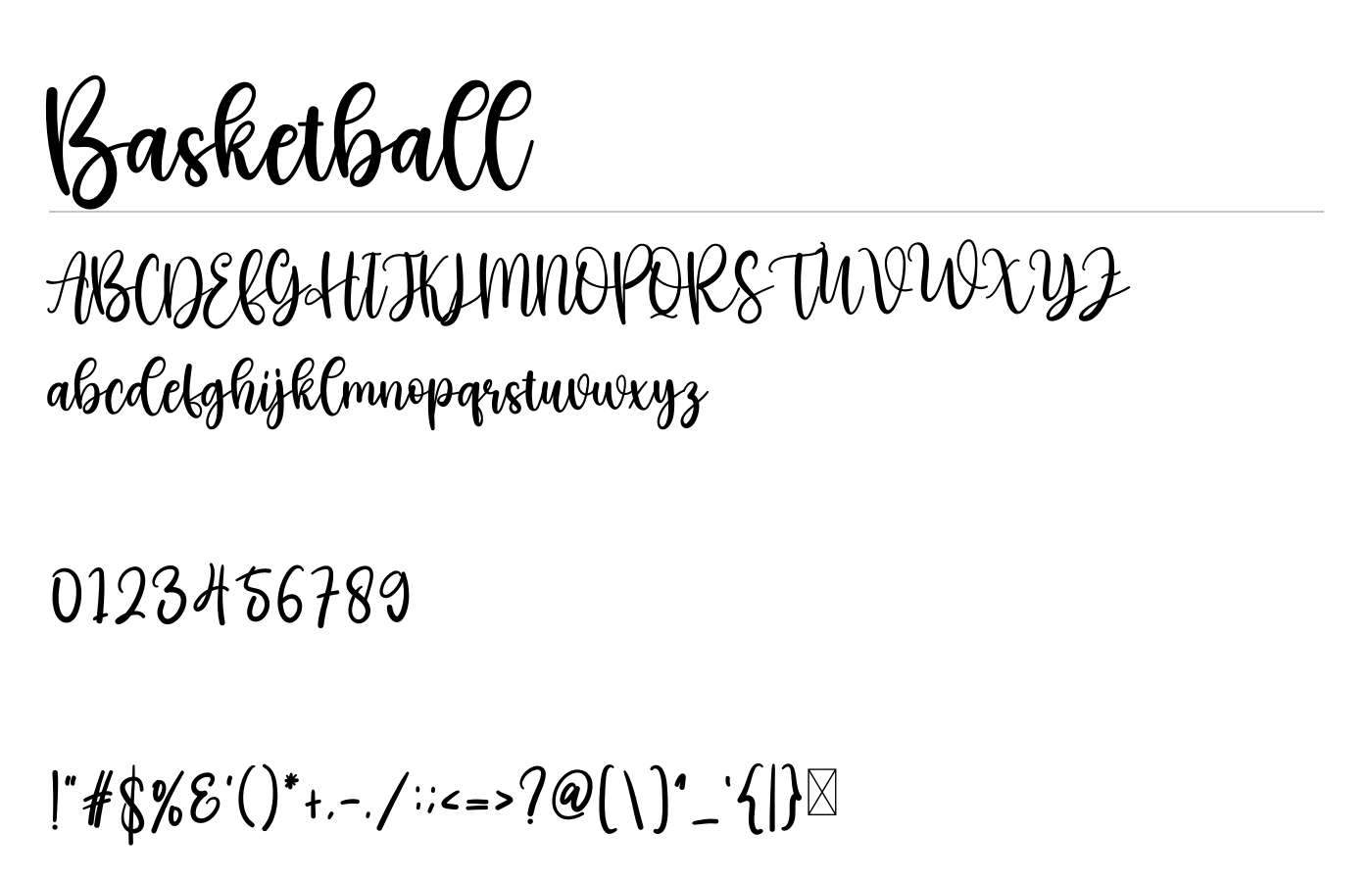
Basketball Font is a lively and elegant script typeface with a hand-drawn feel, featuring smooth, flowing strokes and playful loops that give it a casual yet stylish personality. Its moderate contrast and slightly condensed forms make it ideal for creative branding, invitations, and headlines where a personal, friendly touch is desired. This font brings warmth and charm, making it perfect for lifestyle, fashion, and artistic projects.
Basketball Font